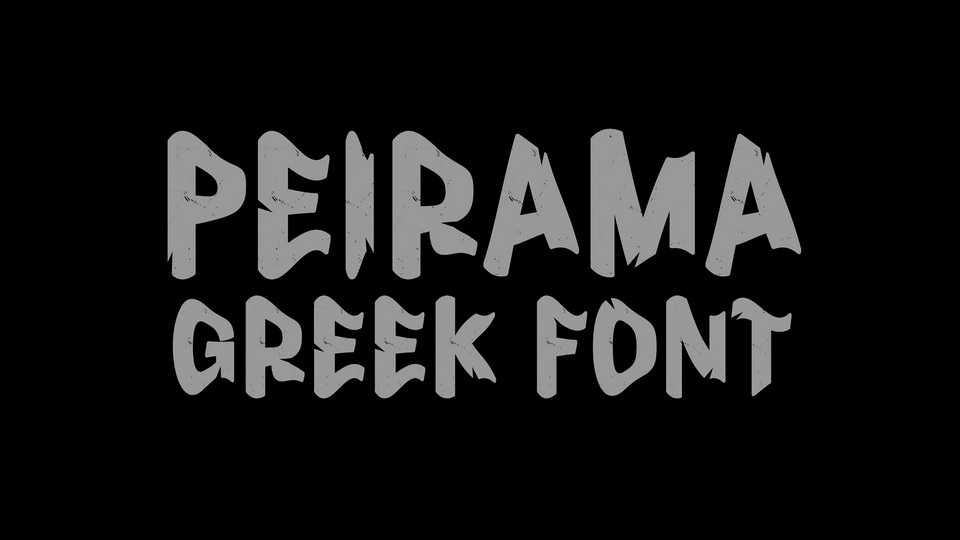
Download Peirama font, an experimental display typeface with a distorted wavy look. Peirama font is perfect for digital art, posters, album covers and so on.
Designer: Christos Lentzaris